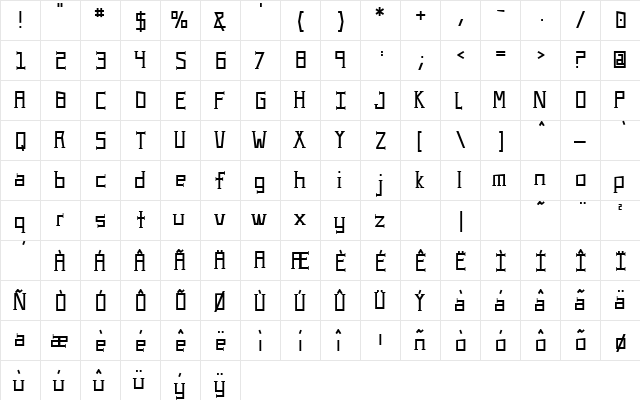
UA Serifed Regular
Design Context for UA Serifed Typeface
UA Serifed brings classic typographic sensibility to the table — its serifs and measured letterforms reflect centuries of print heritage.